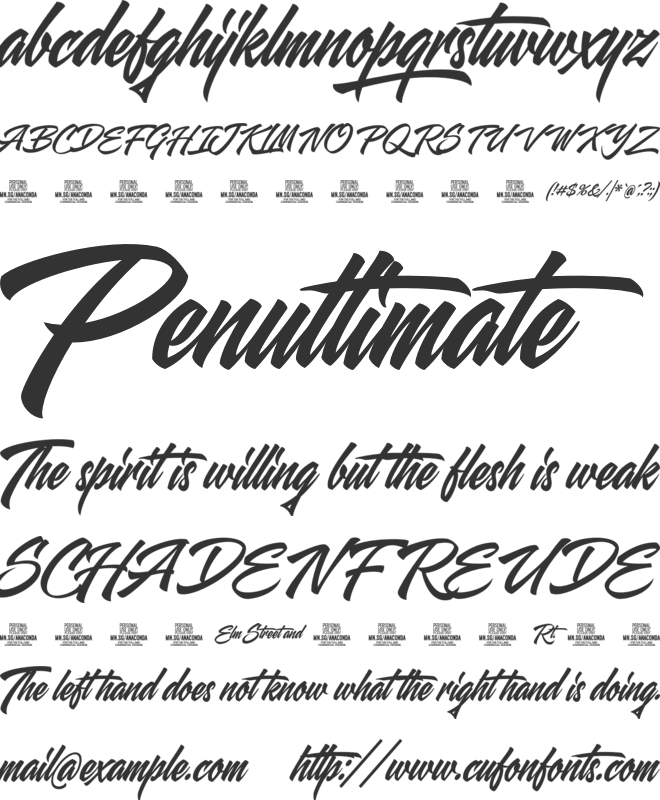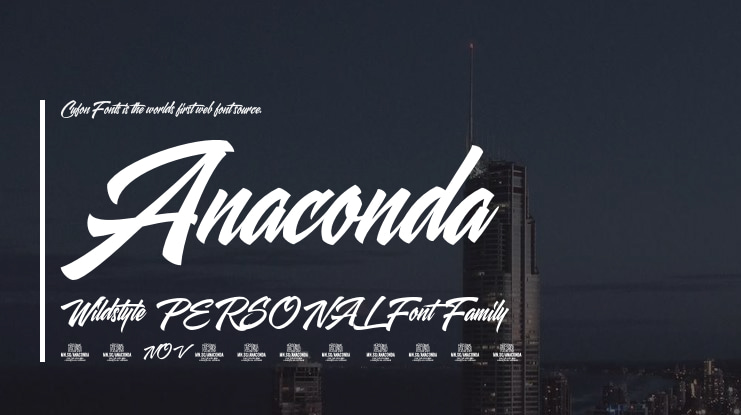
Anaconda Wildstyle PERSONAL Font
NOTE: This font is for PERSONAL USE ONLY!To purchase a commercial license, visit:https://www.mansgreback.com/product/anaconda-wildstyleAnaconda Wildstyle is a typeface with unbridled energy, evoking a sense of freedom and bold self-expression. This serpentine lettering has a striking, unrestrained design and flows and curves with a wild spirit, for everything from edgy clothing branding to unique skate park posters.Use underscore _ to make a swash under any word. Example: Free_domUse multiple underscores to make different underlines. Example: Hawk________linersFor questions, please visit www.mn.sg/faq